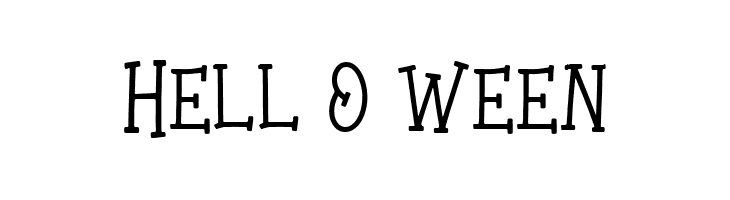
A bold, decorative font with an inline style, offering a vintage yet modern look.
A bold, brushstroke-style font with an artistic and dynamic appearance.
A playful, handwritten font with tall, narrow letters and a casual style.
A playful, casual handwritten font with smooth, flowing strokes.
A bold, playful script font with a hand-drawn, interconnected style.
A playful, handwritten font with thin, delicate strokes and a whimsical style.
A bold, italic, modern font with smooth curves and clean lines.
A lively handwritten font with fluid, playful strokes.
A playful, elegant script font with a handwritten style.
A bold, geometric font with a modern and edgy style.